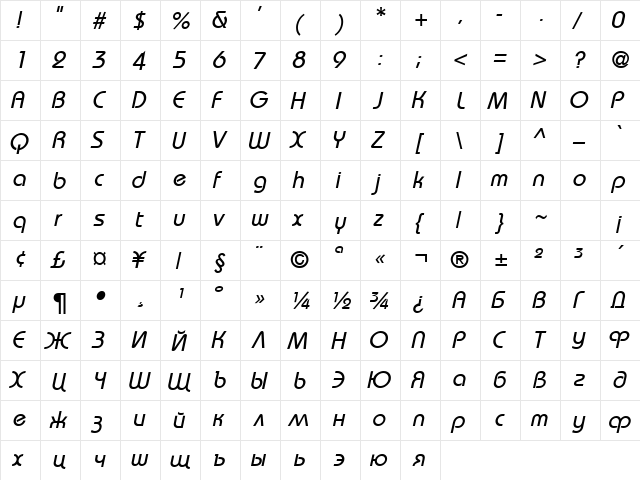
Bahamas Normal Italic Regular Font Preview
Bahamas Normal Italic Regular
Design Context for Bahamas Normal Italic Typeface
Bahamas Normal Italic offers clean, dependable letterforms without strong stylistic allegiance, making it a practical choice for designers who need flexibility. The dynamic lean of this cut emphasises speed and emphasis in any layout.
Pro Tip: Use Bahamas Normal Italic for emphasis, pull quotes, and subheadings where its slanted energy can add rhythm to the layout.